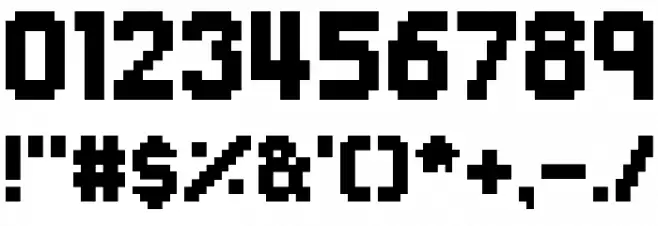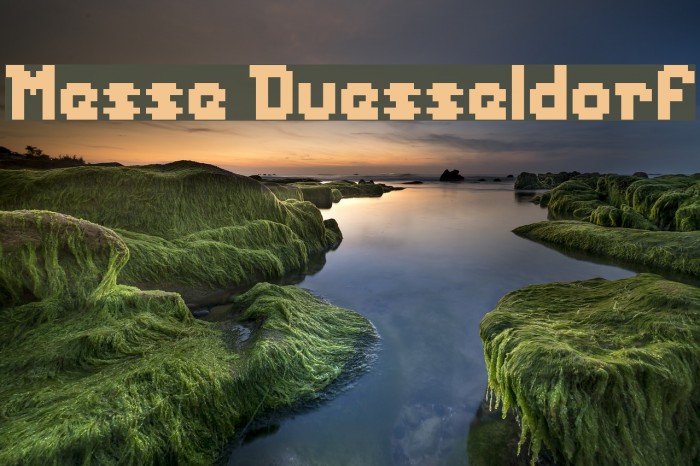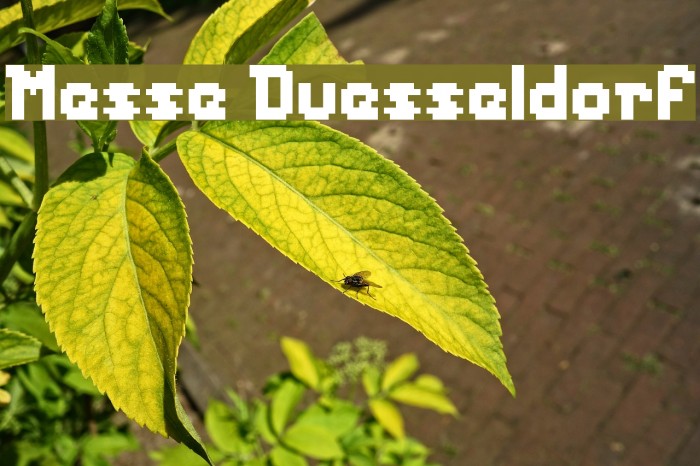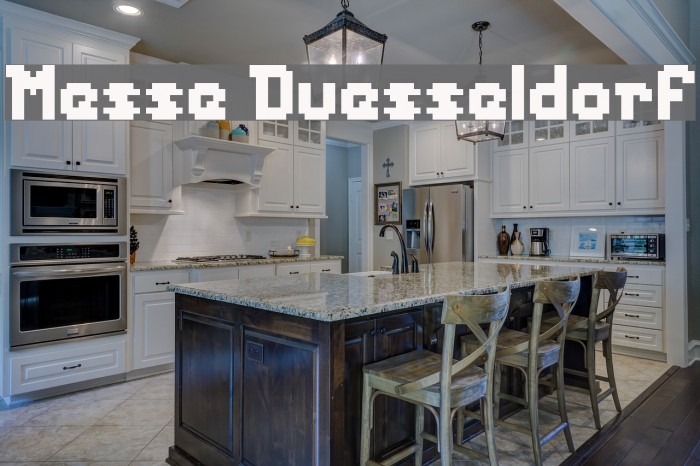
Messe Duesseldorf Font
Messe Duesseldorf Description
This font exhibits a bold, pixelated style reminiscent of early digital or video game typography. The characters are constructed with uniform square blocks, giving it a distinctly retro and geometric appearance. Each letter and number is clearly defined, with consistent height and width, contributing to its legibility despite the blocky design. The font includes a full set of uppercase and lowercase letters, numbers, and a variety of special characters, making it versatile for different uses. Its nostalgic aesthetic is ideal for projects that aim to evoke a sense of classic gaming or digital nostalgia.
| Overall Style | Retro, Digital |
| Proposed Projects | Ideal for video game design, retro-themed posters, digital art projects, and any creative work that seeks to capture a vintage digital feel. |